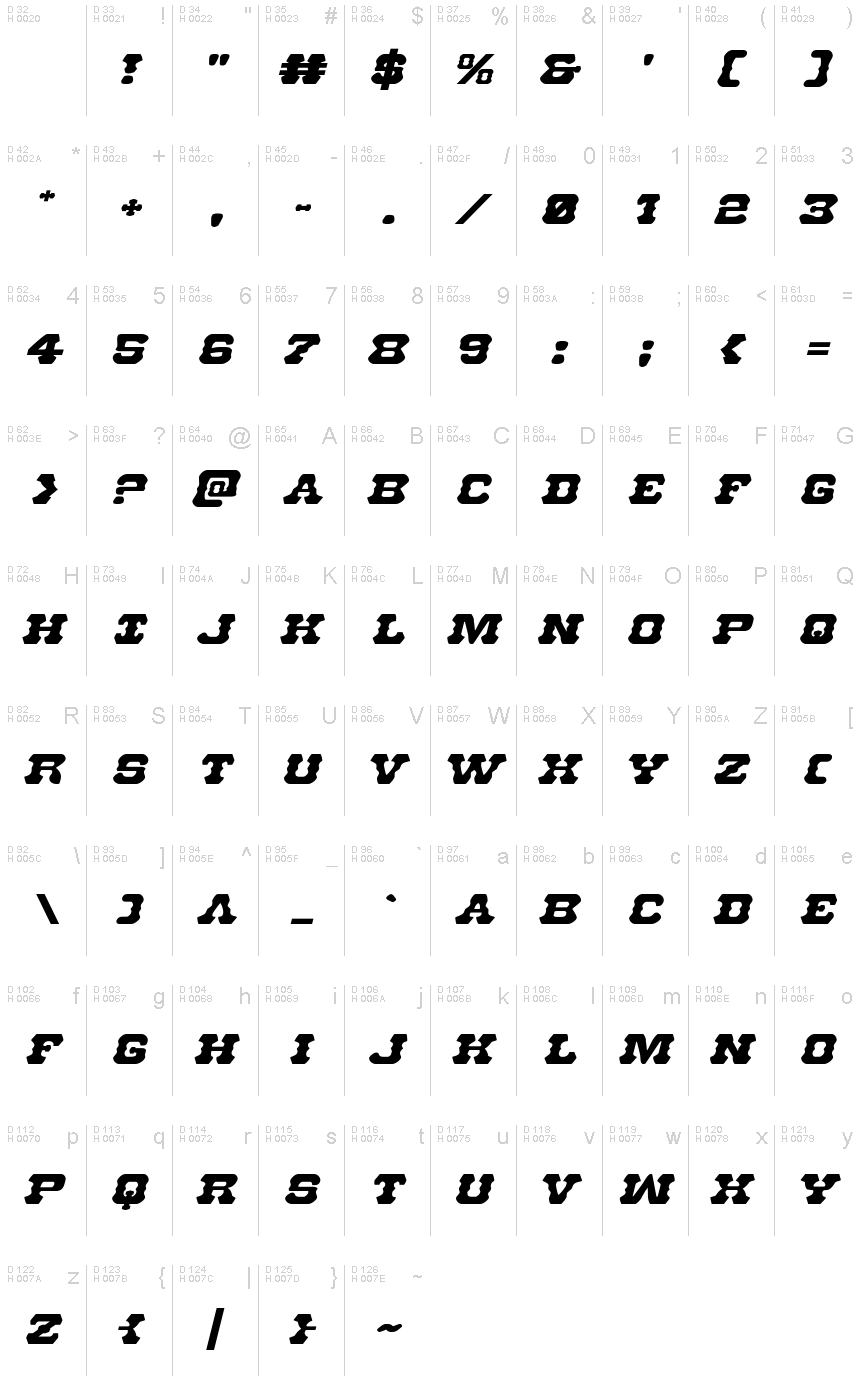
U.S. Marshal Expanded Italic, designed in 2024 by Iconian Fonts, is a free Western display font with broad, forward-leaning capitals. Deeply notched contours and hefty slab serifs give the lettering the graphic force of old frontier posters, with rounded corners softening its otherwise rugged silhouette.
Rodeo promotions and country-music brands are its most natural territory. It also suits saloon packaging, festival merchandise, and Western-themed game graphics, where the recurring notches can echo tooled leather, painted signs, or sheriff-badge ornament.
U.S. Marshal Expanded Italic